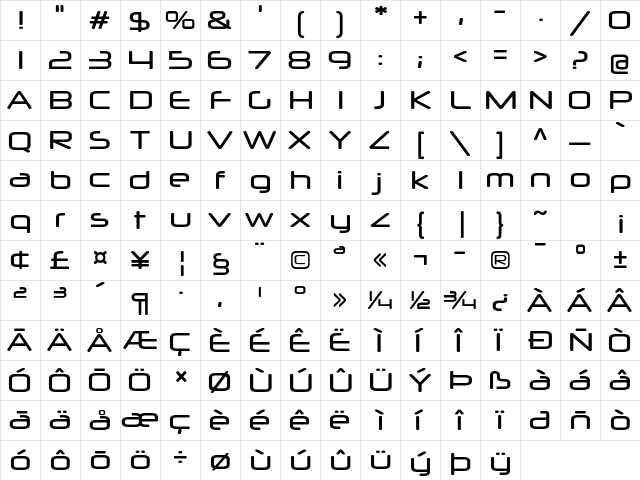
Neuropol Regular
Design Context for Neuropol Typeface
Neuropol is a composed and adaptable typeface that performs quietly and consistently across a wide range of design contexts.